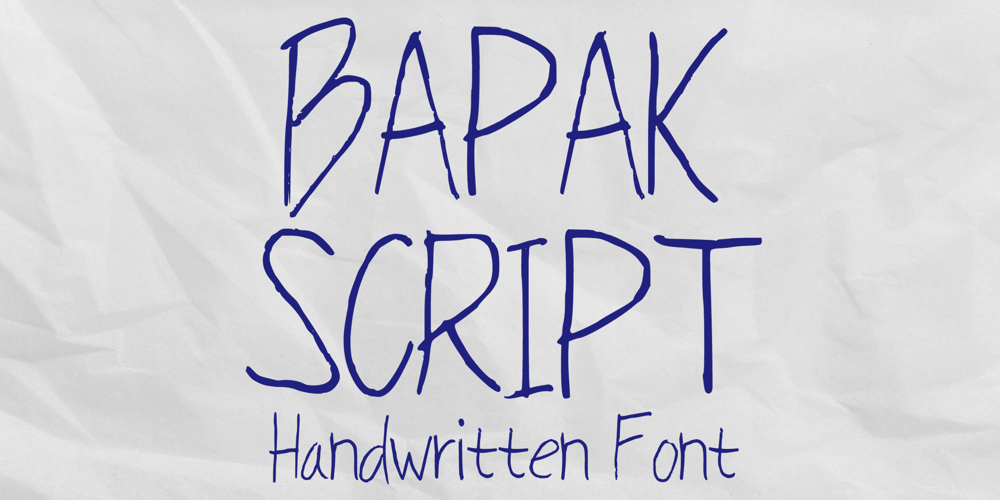
Bapak Script
Bapak Script font
Bapak Script Font Family was designed by Gabriel Valentinus and published by Mvmet. Bapak Script contains 1 styles and family package options. Bapak Script is a versatile thin handwritten font. It will elevate a wide range of design projects to the highest level. You can use this font for many design ideas such as stickers, t-shirt designs, amazing logo designs, magazine or book covers, comics, cartoon drawings, and many more. This font will add a super cool touch to your designs!